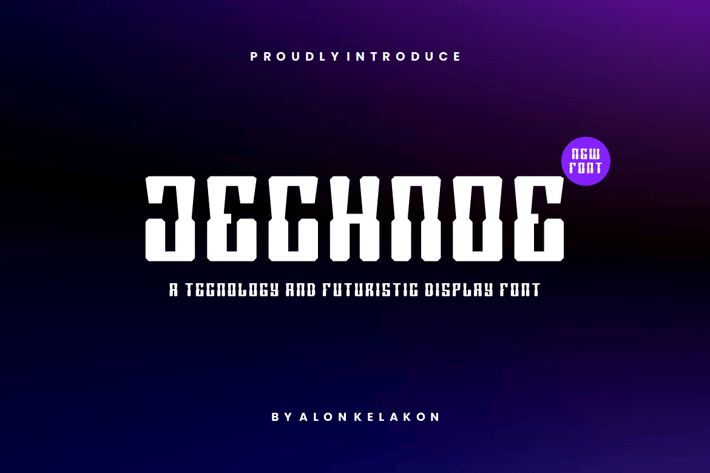
Jechnoe - Technology and Futuristic Font
Jechnoe - technology and futuristic font Font is unique . Ready to use for your design like labeling, movie sceen, poster, movie title, gigs, album covers, logos, and much more.